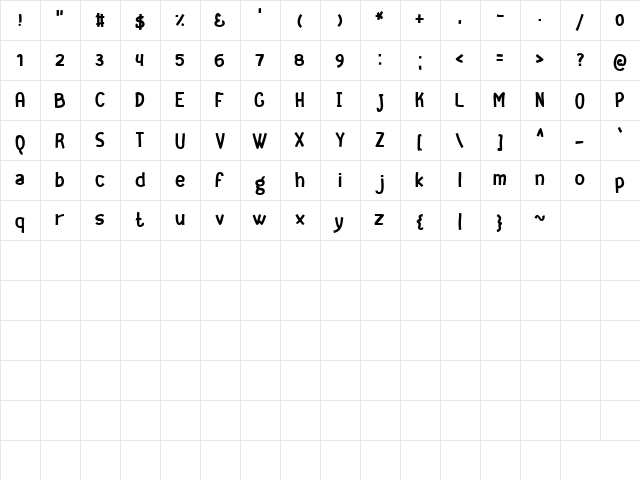
Geeker Regular
| Foundry | Meir Sadan |
| Designer | Meir Sadan |
Design Context for Geeker Typeface
Geeker is a composed and adaptable typeface that performs quietly and consistently across a wide range of design contexts.